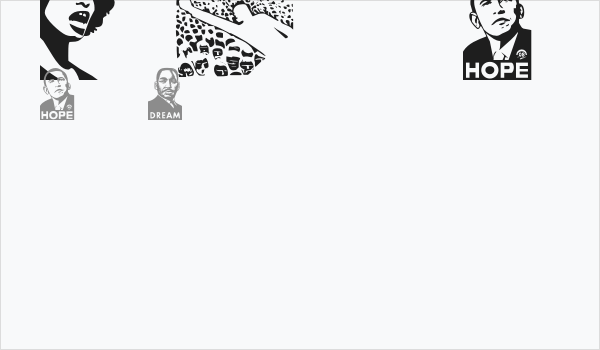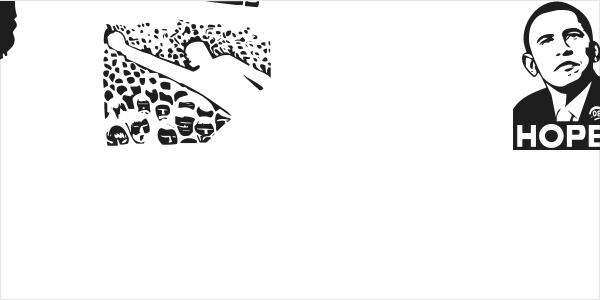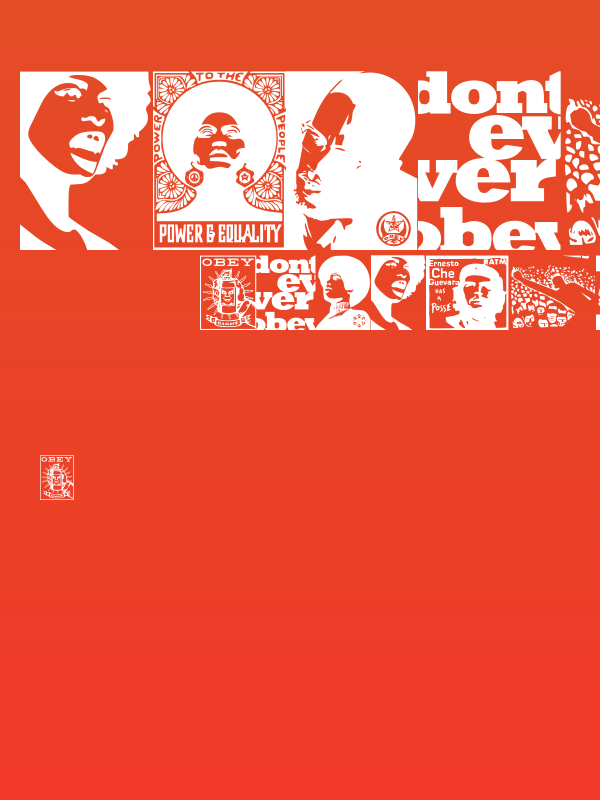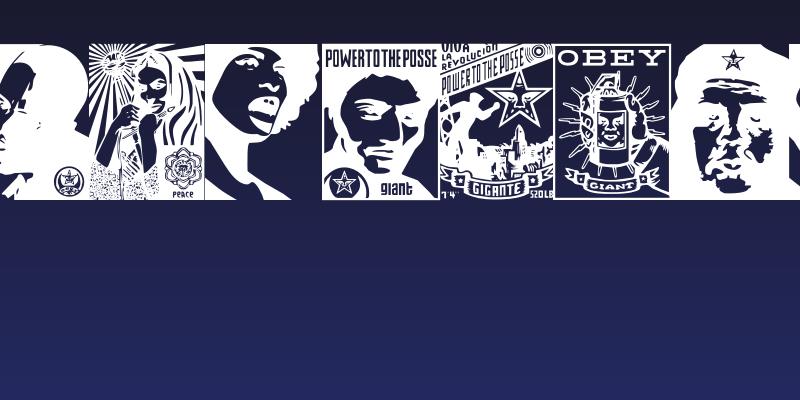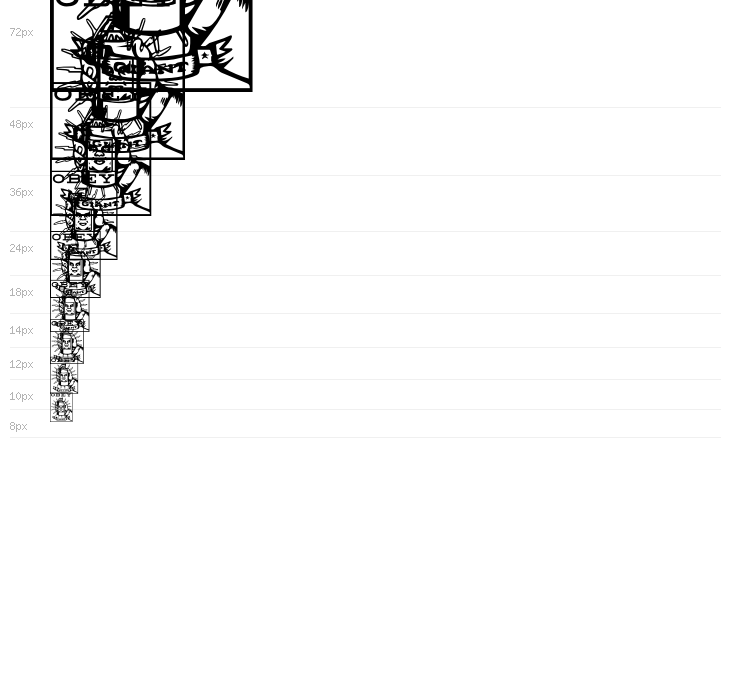
ObeyRevolutionCaps Font
ObeyRevolutionCaps Description
This is not a valid font. The image appears to be a collection of graphic designs or illustrations rather than a structured typeface. It includes various artistic elements and imagery, possibly related to a specific theme or message, but does not display a complete set of alphanumeric characters or symbols in a consistent style.
This font includes 30 characters. Click on any character to see details.